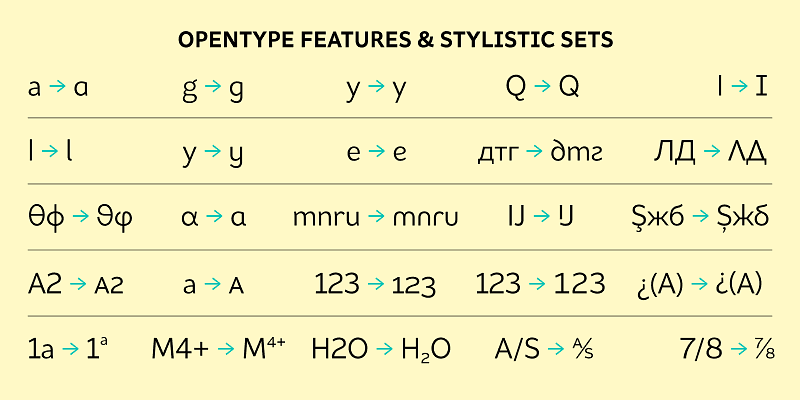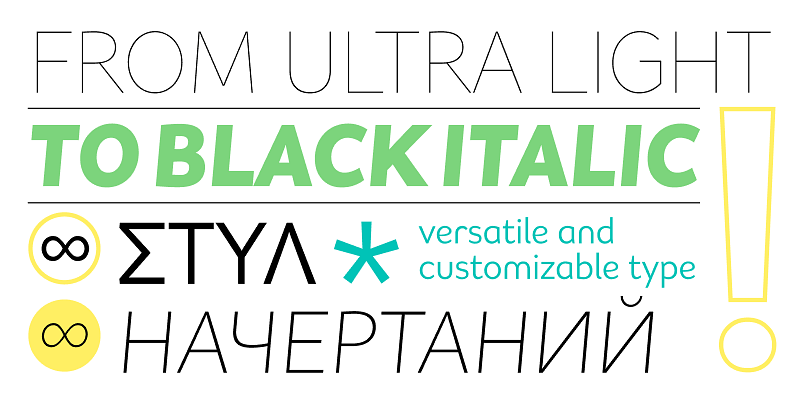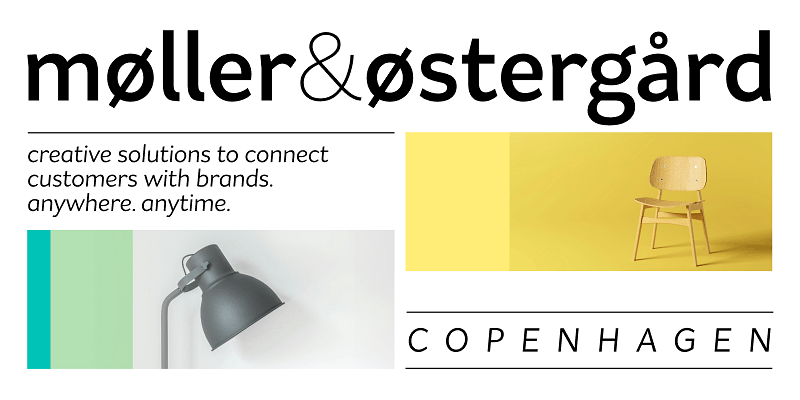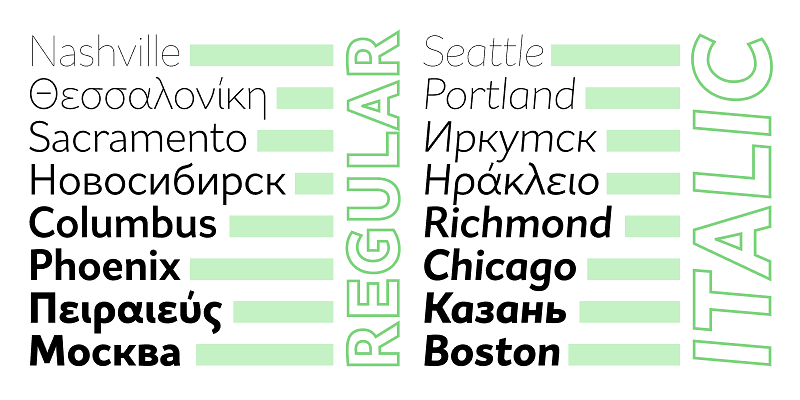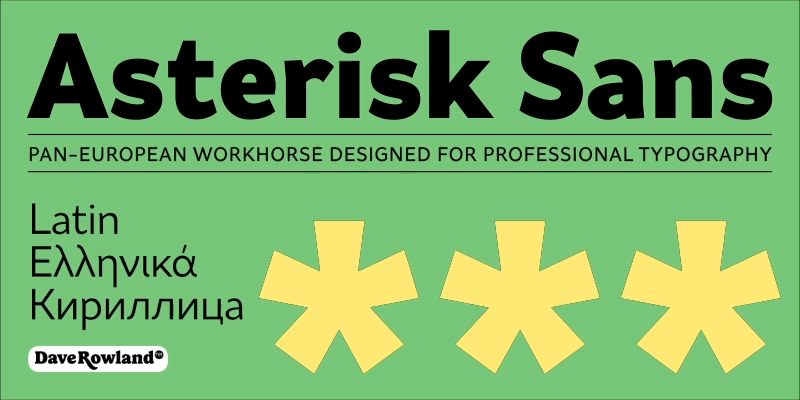
Asterisk Sans Variable aims to be a highly versatile humanist sans. The look is contemporary; details that give the font’s character at large sizes all but disappear when small, making the midrange weights suitable for lots of text. This family is an invaluable tool in your typeface arsenal, great for everything from corporate identities to editorial work, apps, and cookbooks. Asterisk Sans is also massively useful due to its pan-European language support, including Greek and Cyrillic.